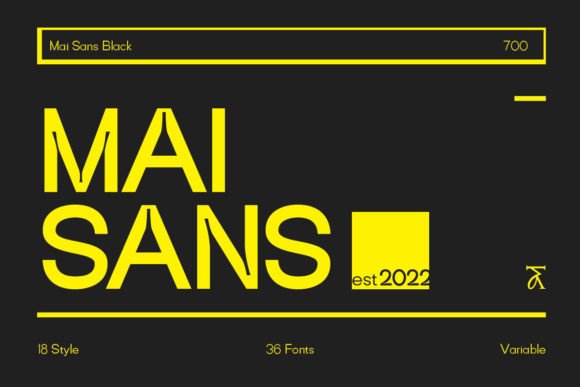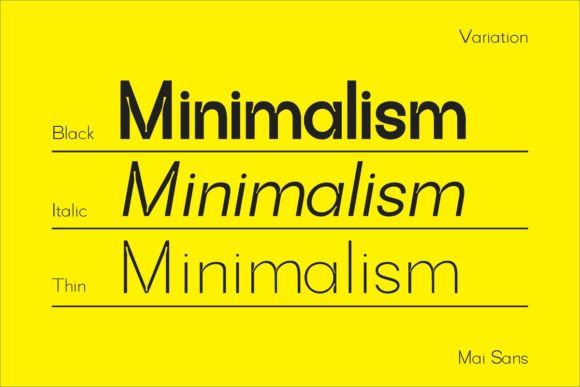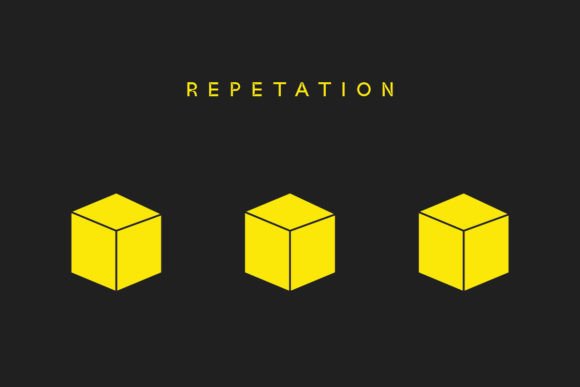
Introduction to Mai Sans Font
Have you ever been working on a creative project, staring at a blank page or screen, and suddenly the perfect font pops into your head? It’s a moment of pure design bliss. For many designers, the right font can be the difference between a good project and a great one. That’s why we’re excited to introduce you to the Mai Sans Font, a modern and exquisite sans serif font family that’s about to become your new go-to design resource.
With 18 style variations, ink traps, and thick and thin characters, the Mai Sans Font is the perfect choice for any project, whether you’re working on a personal or business endeavor. Its high quality and versatility make it a valuable asset for designers who demand the best.
Key Features of Mai Sans Font
- High-quality sans-serif font with a clean and modern design, suitable for various creative projects.
- Designed to be highly legible, even at small font sizes, making it perfect for use in digital and print media.
- Part of the Mai Sans Font family, offering a consistent and cohesive design across different font weights and styles.
Honest Review: Mai Sans Font
I recently had the chance to work with the Mai Sans Font in a creative project, and I must say it’s a solid addition to any design resource.
One of the things I appreciate about this font is its high quality design. It’s clear that the creators put a lot of thought into creating a smooth, elegant look that works well in a variety of contexts. ✨
Here are some of the features that stood out to me:
- High-quality design that’s perfect for a variety of creative projects
- Works well with a transparent background, giving your designs a clean and modern look
While the Mai Sans Font is a great addition to any design resource, there are a few limitations to be aware of:
- May not be suitable for very large or complex designs, as it can become difficult to read at certain font sizes
- Some users may find the font a bit too simplistic, which can be a drawback for those looking for something more bold or statement-making ⚠️
Tips for Getting the Most Out of Mai Sans Font
To get the most out of Mai Sans Font, use it in conjunction with a high-contrast background to make the font stand out. You can also experiment with different font sizes and styles to add visual interest to your designs.
Mai Sans Font is ideal for use in creative projects such as:
- Print design
- Infographics
Alternatives to Mai Sans Font
Open Sans is a modern sans-serif font that is highly legible and suitable for both online and offline use. It’s a popular design resource for creative projects requiring a clean and simple look. When to use: For high-quality digital design, print materials, and web development projects where a clear and transparent background is required. Comparison to Mai Sans Font: Open Sans has a more geometric and sleek appearance, making it ideal for modern designs.
Lato is a sans-serif font that offers a high-quality design experience with its clean and elegant lines. It’s a free download that can be used in various creative projects, including web design, print materials, and digital art. When to use: For designs requiring a sophisticated and professional look, especially when paired with a transparent background. Comparison to Mai Sans Font: Lato has a more rounded and friendly appearance, making it suitable for designs that need a touch of warmth.
Montserrrat is a geometric sans-serif font inspired by the urban environment of Buenos Aires. It’s a popular design resource for creative projects that require a high-quality and modern look. When to use: For designs that need a bold and urban feel, especially when paired with a transparent background. Comparison to Mai Sans Font: Montserrat has a more edgy and industrial appearance, making it ideal for designs that require a strong and modern aesthetic.